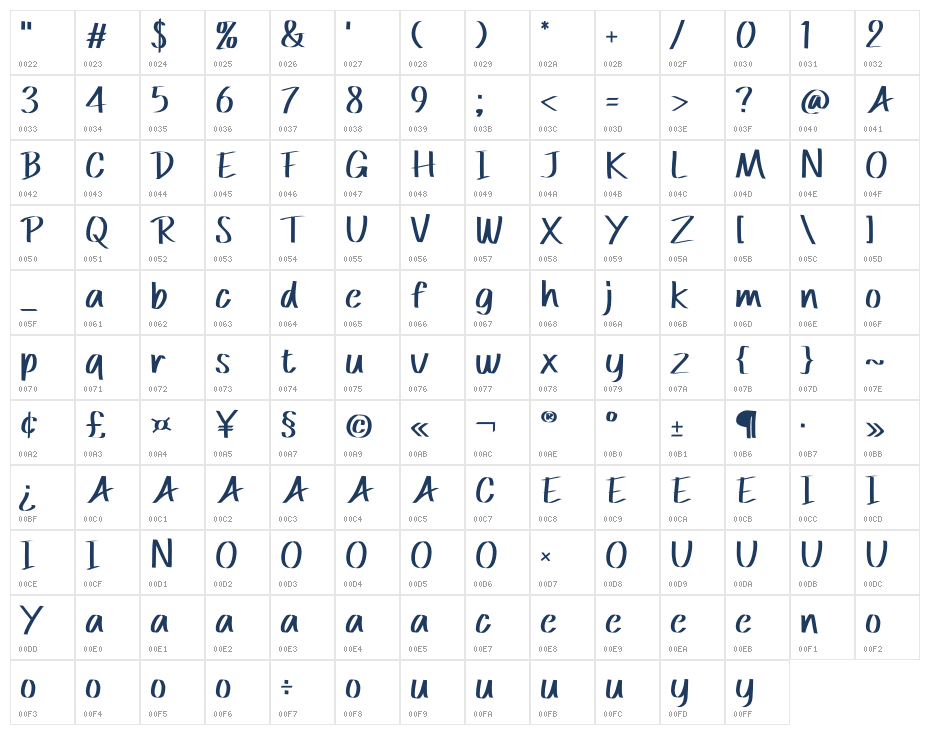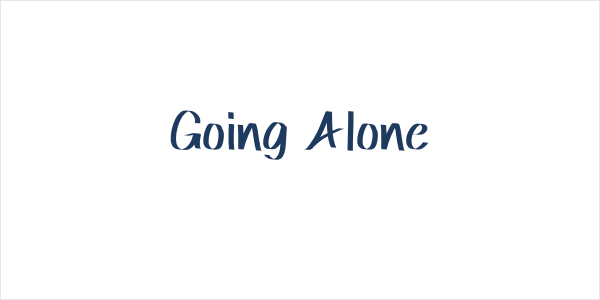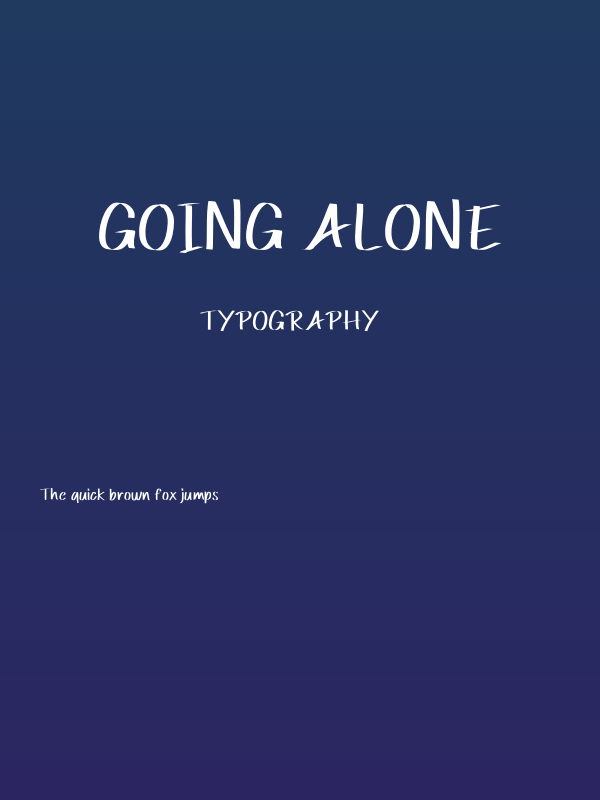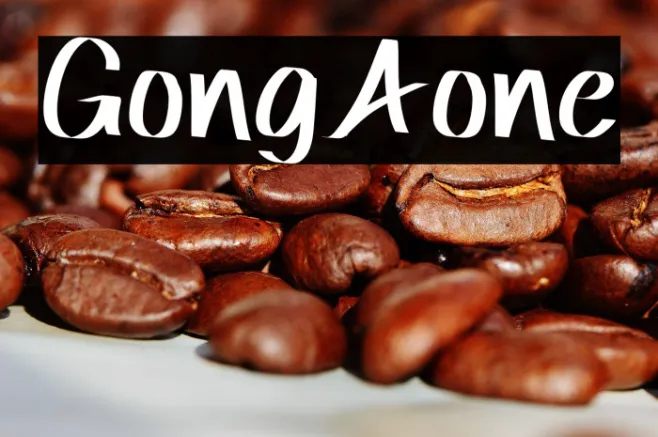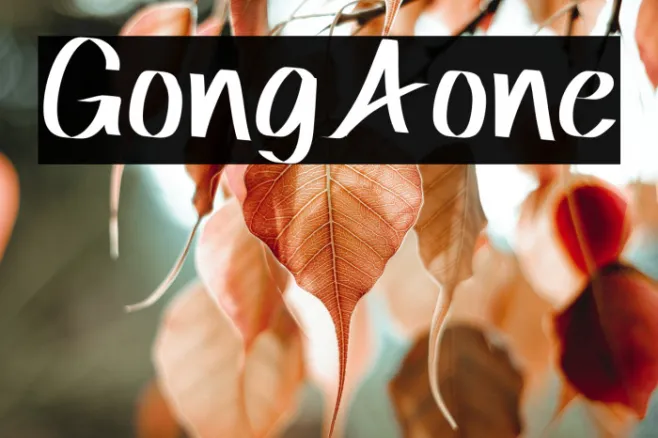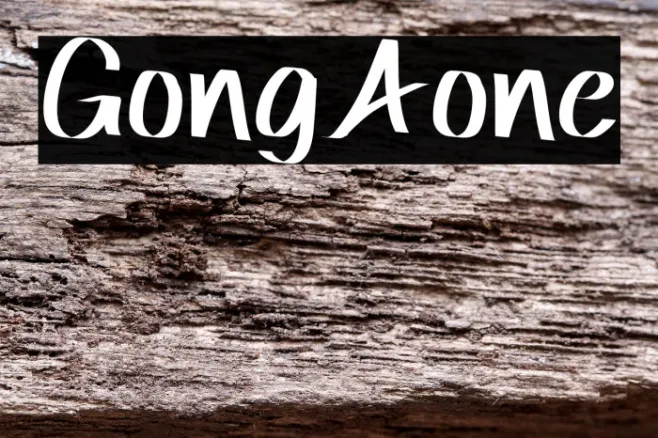
Going Alone Font
Going Alone Description
A playful, handwritten style font with a casual and dynamic appearance, featuring varied stroke widths and a slightly irregular baseline.
| Overall Style | Casual, Playful, Handwritten |
| Use Case | Headlines, Body text, Logos, Invitations, Creative projects |